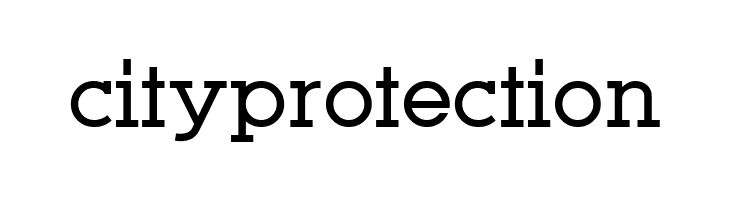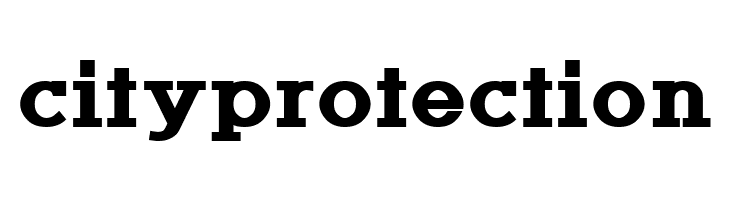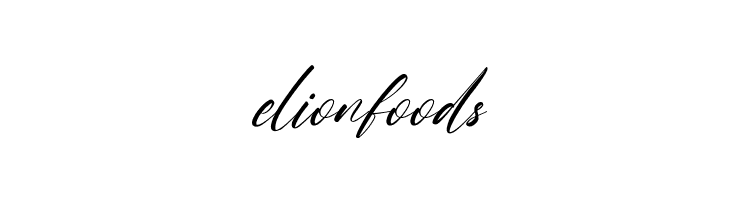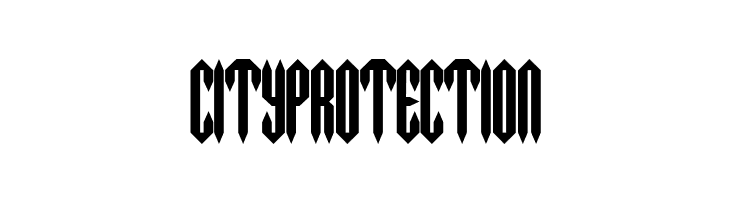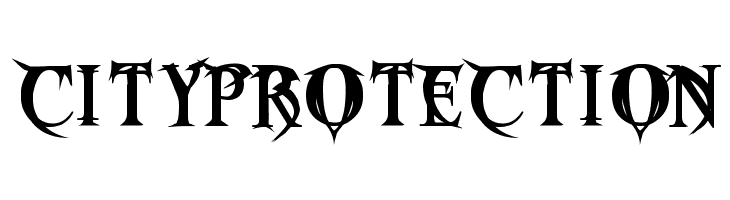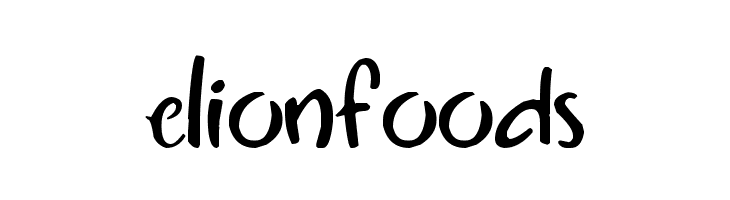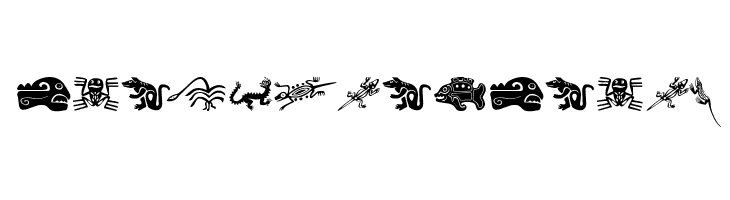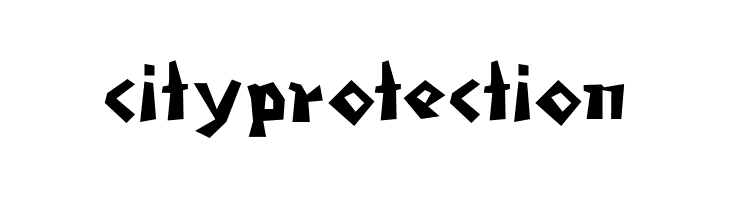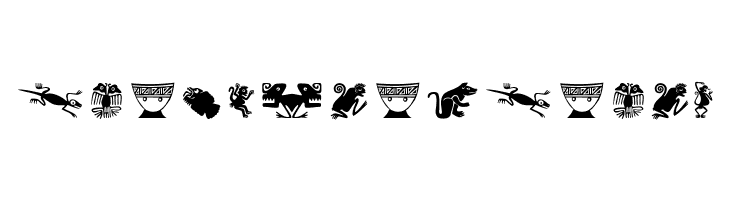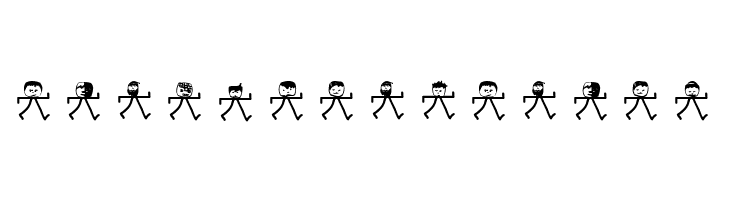
A modern serif font with clean lines and balanced proportions.
A bold, strong font with thick strokes and a commanding presence.
A bold, slab serif font with strong, thick strokes and a modern classic appeal.
A bold, angular font with dynamic, geometric shapes.
A playful decorative font with unique stick figure characters.
An abstract, artistic font with bold, irregular strokes and a chaotic style.
Animal-themed decorative font with illustrated characters.
A decorative dingbat font of human silhouettes and cartoon figures.
Hand-drawn animal illustrations form each character, creating a playful and decorative font.
A playful, casual handwritten font with irregular strokes and organic flow.
A lively handwritten font with medium contrast and a casual, dynamic style.
A fluid, handwritten italic font with elegant and flowing letterforms.
A playful, elongated font with a whimsical, hand-drawn style.
A decorative font inspired by Mesoamerican symbols with intricate and bold designs.
A decorative font inspired by Mesoamerican symbols, featuring intricate and artistic glyphs.
A decorative font featuring intricate Mesoamerican-inspired glyphs.
A decorative font inspired by Mesoamerican art, featuring intricate and bold glyphs.
A decorative font featuring intricate, tribal-inspired glyphs of animals and mythical creatures.
A decorative set of glyphs inspired by Mesoamerican fauna, featuring intricate and bold designs.
An iconographic set depicting mail and office-related items.
A bold, gothic font with sharp, thorn-like details and a macabre aesthetic.
A bold, angular font with high contrast and tight spacing, perfect for impactful designs.
A decorative serif font with musical notation elements, perfect for artistic projects.
A decorative font with retro and modern influences, featuring bold geometric shapes and intricate patterns.
A bold, 3D italic font with a futuristic, geometric design.
A bold, geometric font with a 3D outline effect, perfect for modern designs.